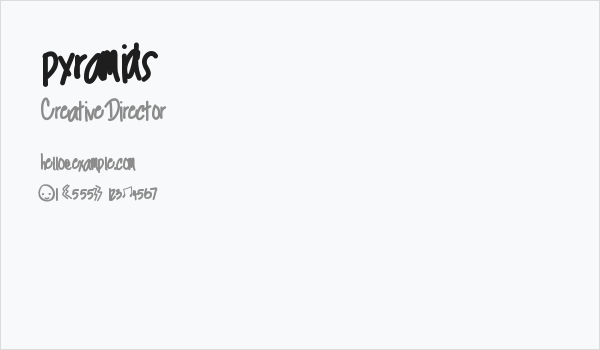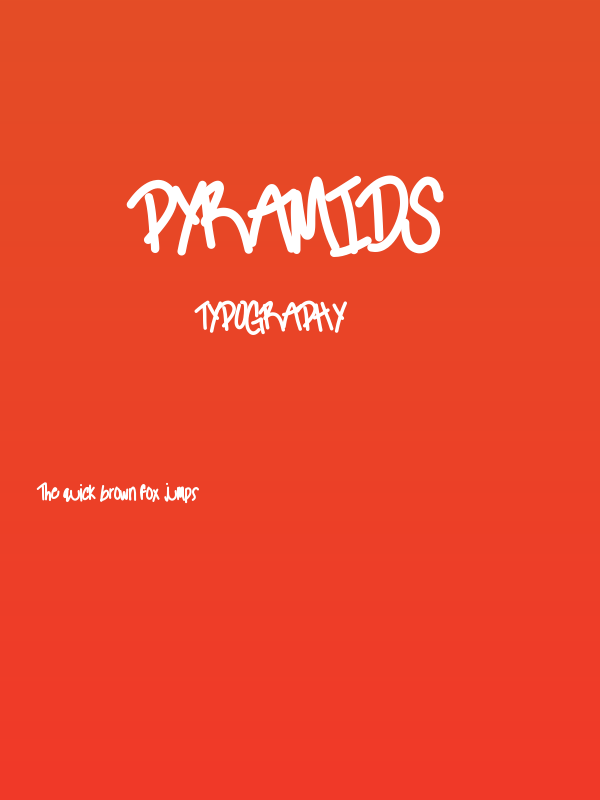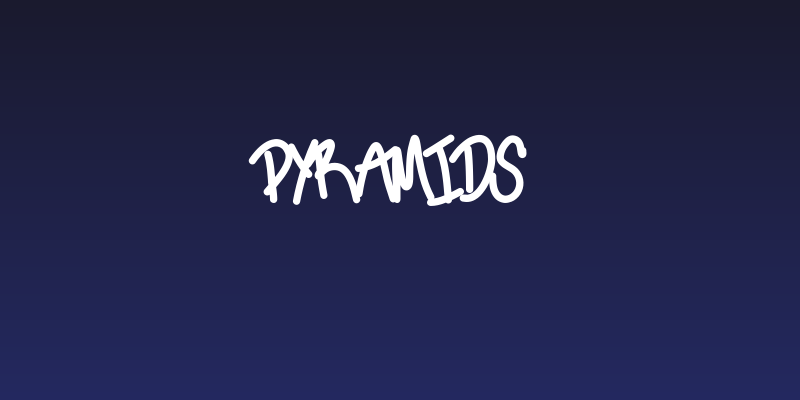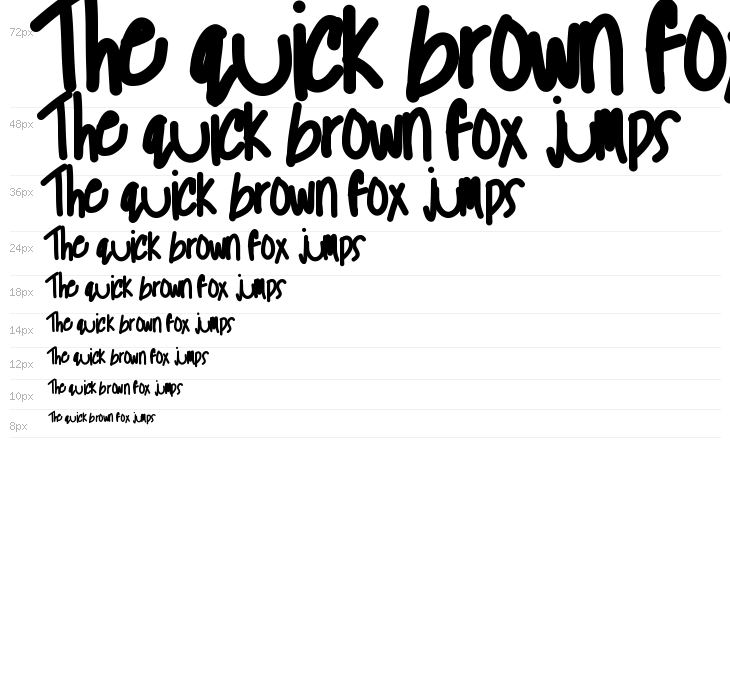
pyramids Font
pyramids Description
This font exudes a playful and energetic vibe with its bold, handwritten style. The letters are characterized by their thick strokes and casual, freeform appearance, giving it a lively and informal feel. The uppercase and lowercase letters maintain a consistent style, with rounded edges and a slightly slanted orientation, adding to its dynamic look. The numbers and special characters follow the same aesthetic, ensuring a cohesive design throughout. This font is perfect for projects that require a touch of personality and creativity, making it ideal for informal branding, playful headlines, or artistic designs.
PYRAMIDS UPPERCASE
PYRAMIDS LOWERCASE
PYRAMIDS OTHER CHARS
| Overall Style | Playful, Energetic, Informal |
| Use Case | Headlines, Logos, Artistic Designs |
| Proposed Projects | Ideal for playful branding, artistic designs, informal invitations, and creative headlines. |